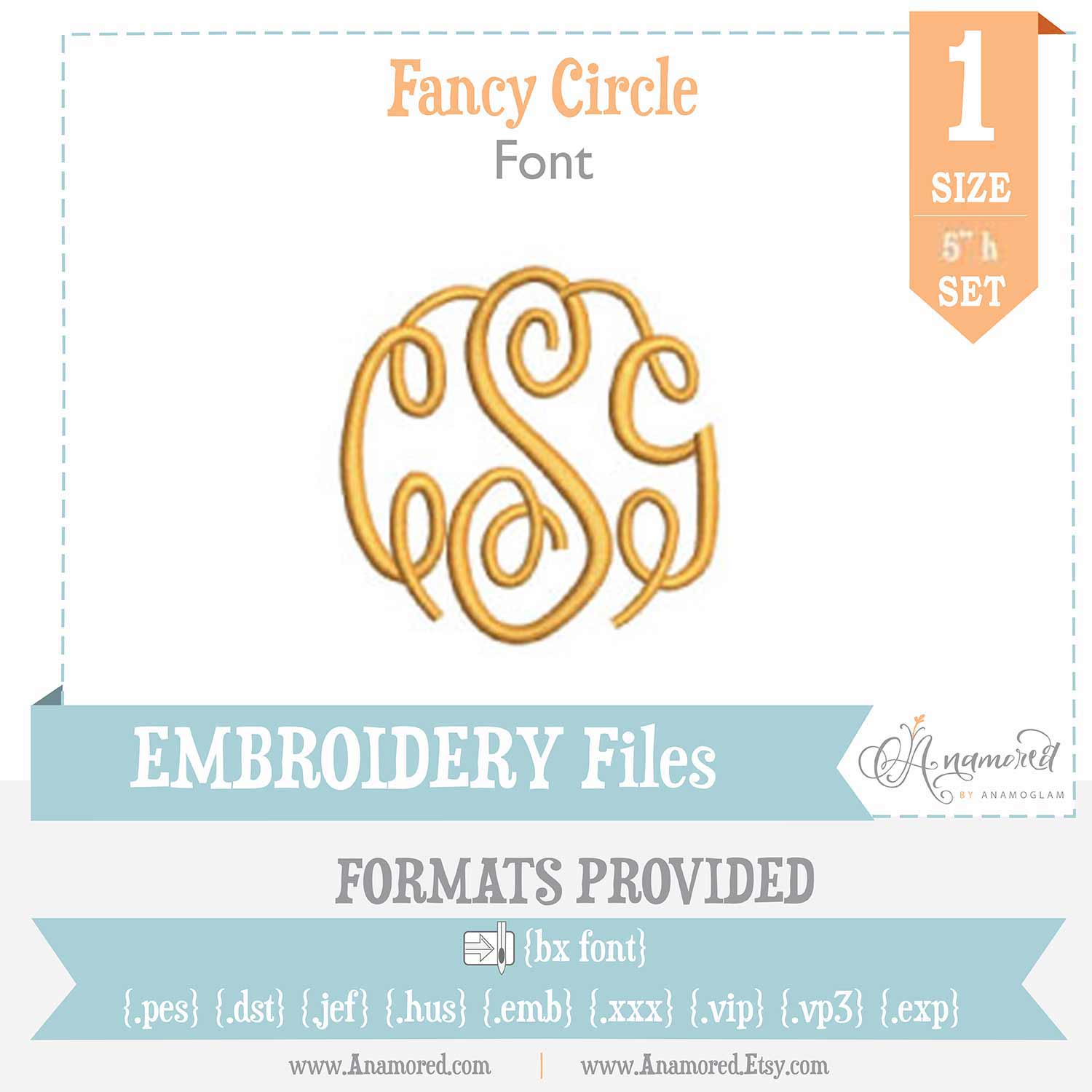
5 inch Fancy Circle Embroidery Monogram Font
3 Letter Fancy Circle Monogram Alphabet /Font for Embroidery Machines
Each set includes all 26 center letters, 26 left letters and 26 right letters.
Letters sized for a perfectly circular shape.
Satin Stitch. Split satin in wider areas.